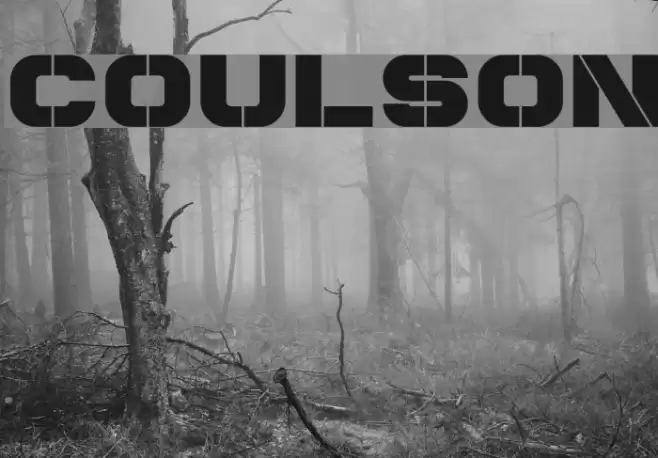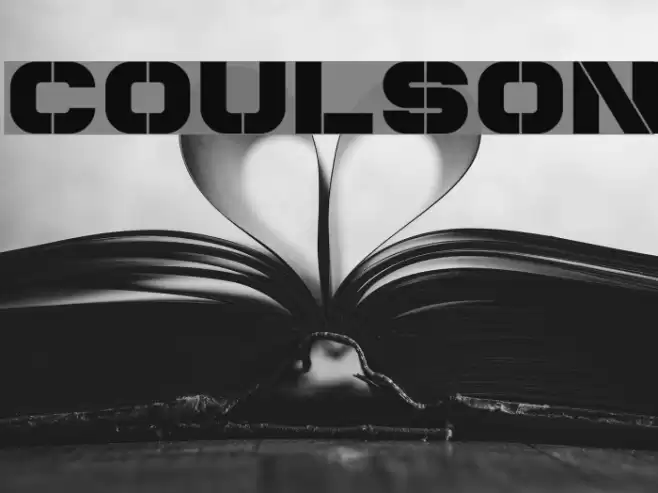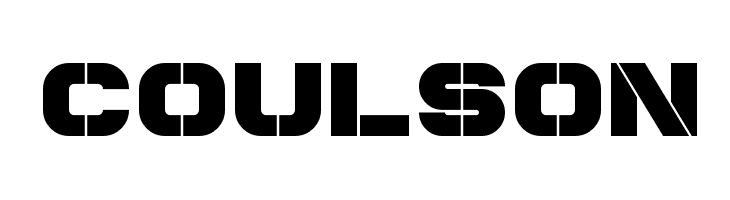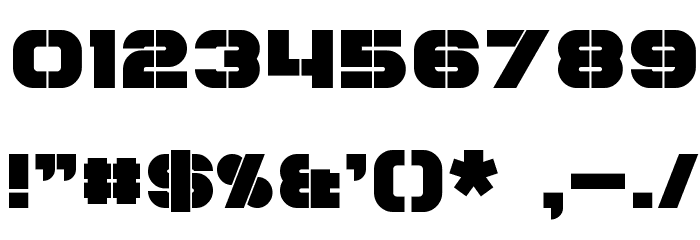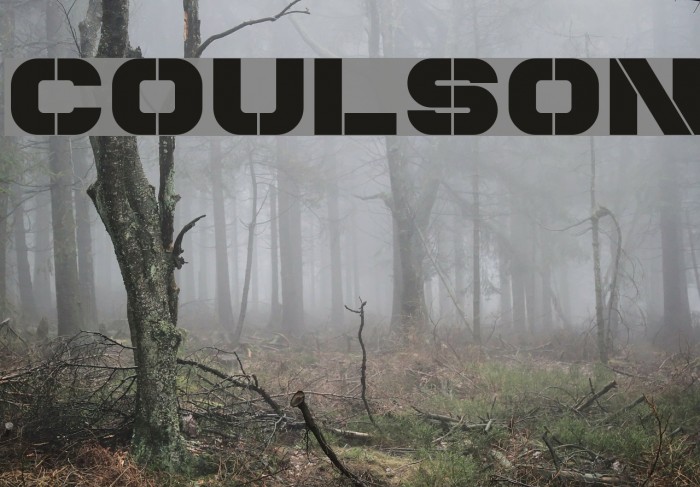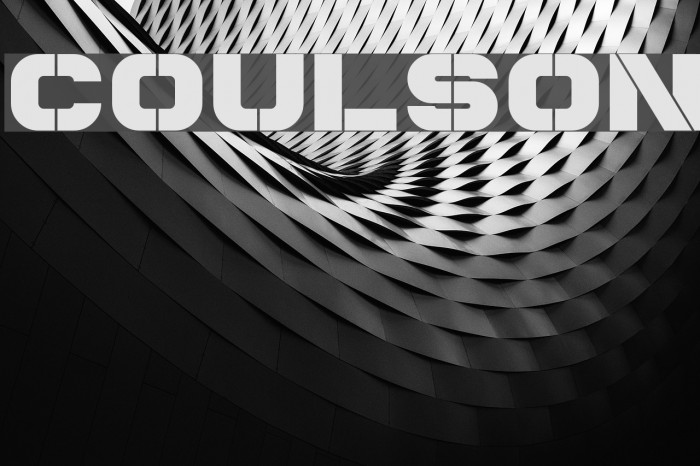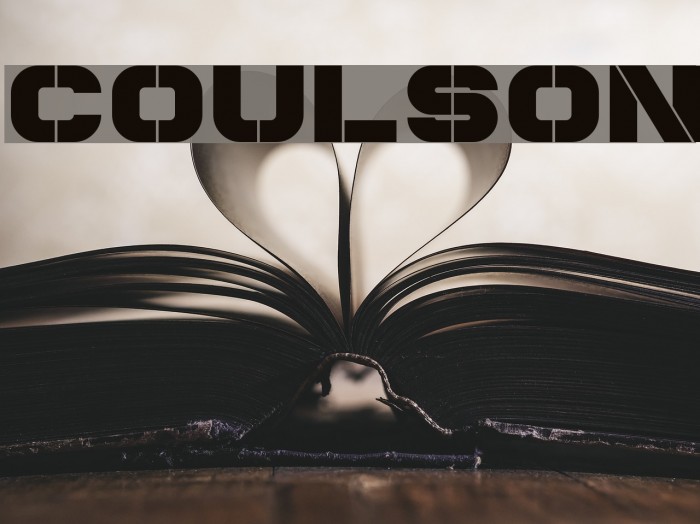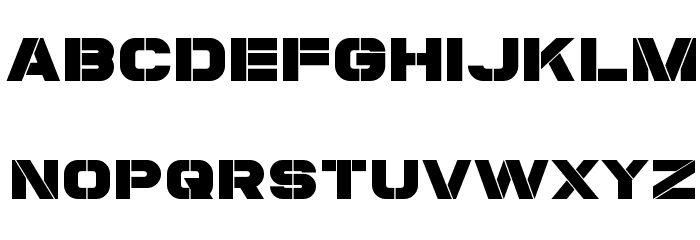
Coulson Font
Coulson Description
This font features a bold, geometric design with a strong emphasis on angular shapes and sharp edges. The characters are constructed with a block-like appearance, giving them a modern and industrial feel. The uppercase and lowercase letters share a consistent style, with each character exhibiting a unique cutout or stencil-like quality that adds to its distinctiveness. The numbers and special characters follow the same design principles, ensuring a cohesive look across all glyphs. This font's striking appearance makes it ideal for attention-grabbing headlines and impactful graphic design projects.
A bold, geometric font with angular shapes and a modern, industrial feel from Uncategorized fonts.